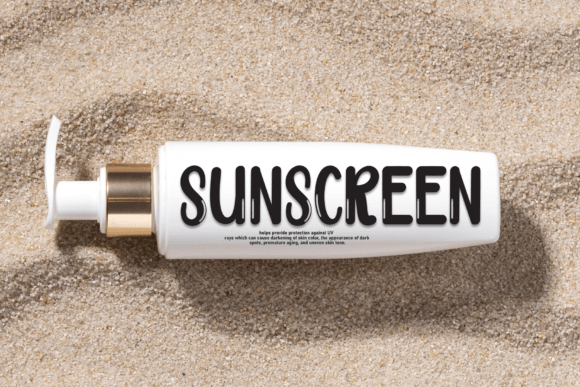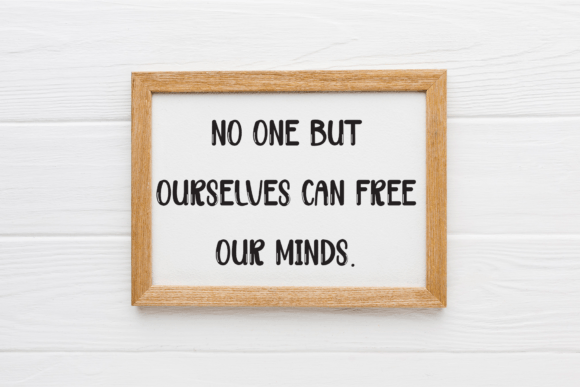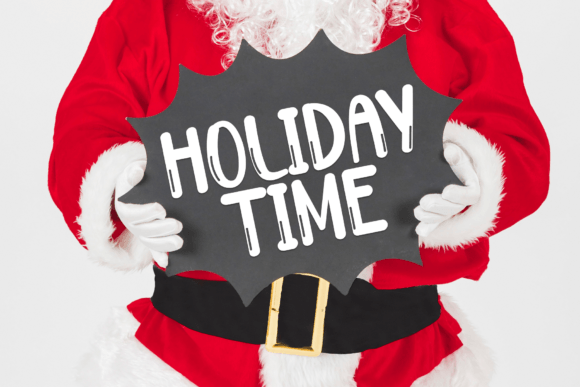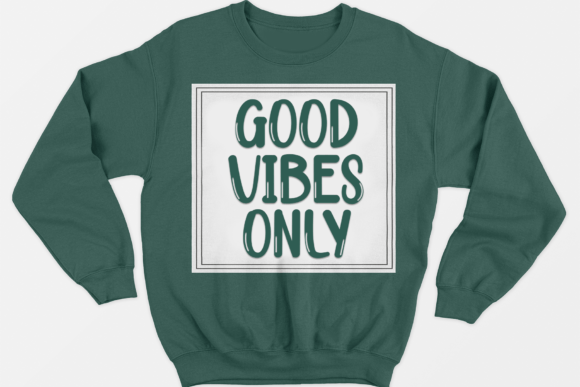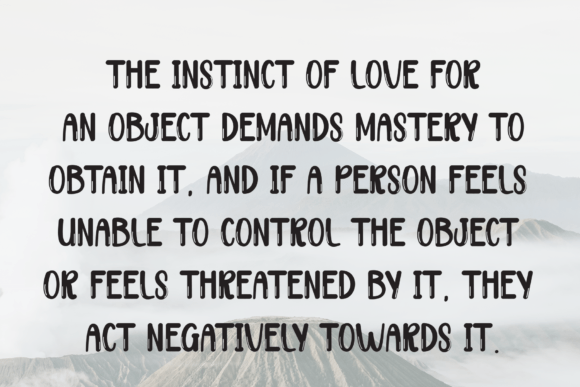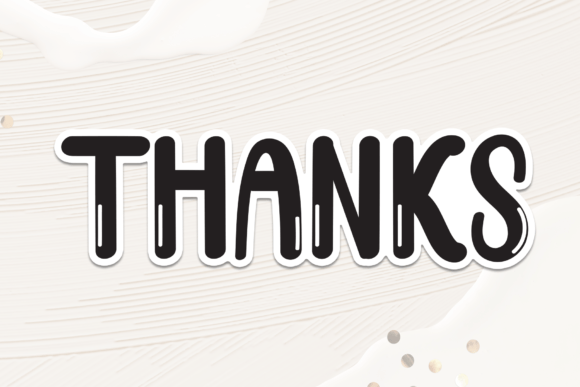
Introducing Change Font: Adding a Sweet and Friendly Touch to Your Designs
Are you looking for a font that can add a playful and charming touch to your designs? Look no further than Change Font, a sweet and friendly handwritten display font that’s perfect for creating eye-catching and engaging content. In this article, we’ll explore the features and benefits of Change Font, and show you how to make the most of this versatile and fun font.
What is Change Font?
Change Font is a beautiful handwritten display font that’s designed to bring a touch of whimsy and fun to your designs. With its cute and playful style, this font is ideal for writing wedding invitations, cards, or any other design that might need a friendly and approachable tone. Whether you’re a designer, crafter, or DIY enthusiast, Change Font is a great addition to your font collection.
Key Features of Change Font
- Cute and Fun Design: Change Font features a playful and charming design that’s perfect for creating eye-catching and engaging content.
- Handwritten Style: This font has a beautiful handwritten style that’s perfect for adding a personal touch to your designs.
- Display Font: Change Font is a display font, making it perfect for headlines, titles, and other prominent text elements.
- Versatile: This font can be used for a wide range of design projects, from wedding invitations and cards to posters, flyers, and more.
Benefits of Using Change Font
So why choose Change Font for your design projects? Here are just a few benefits of using this sweet and friendly font:
- Adds a Personal Touch: Change Font’s handwritten style adds a personal touch to your designs, making them more relatable and engaging.
- Perfect for Creative Projects: This font is ideal for creative projects, such as wedding invitations, cards, and other DIY designs.
- Easy to Read: Despite its playful style, Change Font is easy to read, making it perfect for use in a variety of design projects.
- Unique and Eye-Catching: Change Font’s unique design makes it stand out from more traditional fonts, adding a touch of personality to your designs.
Using Change Font in Your Designs
So how can you use Change Font in your designs? Here are a few ideas to get you started:
- Wedding Invitations: Use Change Font to create beautiful and unique wedding invitations that set the tone for a special day.
- Cards and Stationery: Add a personal touch to your cards and stationery with Change Font’s playful and charming design.
- Posters and Flyers: Use Change Font to create eye-catching posters and flyers that grab attention and communicate your message.
- DIY Projects: Change Font is perfect for DIY projects, such as scrapbooking, journaling, and other crafty endeavors.
Tips for Getting the Most Out of Change Font
Here are a few tips for getting the most out of Change Font:
- Experiment with Different Sizes: Change Font looks great in a variety of sizes, so don’t be afraid to experiment and find the perfect size for your design.
- Pair with Other Fonts: Change Font pairs well with other fonts, so try combining it with a more traditional font to create visual interest.
- Use it Sparingly: While Change Font is a fun and playful font, it can be overwhelming if used too much. Use it sparingly to add a touch of personality to your designs.
Change Font is a sweet and friendly handwritten display font that’s perfect for adding a touch of whimsy and fun to your designs. With its cute and playful style, this font is ideal for a wide range of design projects, from wedding invitations and cards to posters, flyers, and more. Whether you’re a designer, crafter, or DIY enthusiast, Change Font is a great addition to your font collection. So why not give it a try and see how it can add a personal touch to your designs?